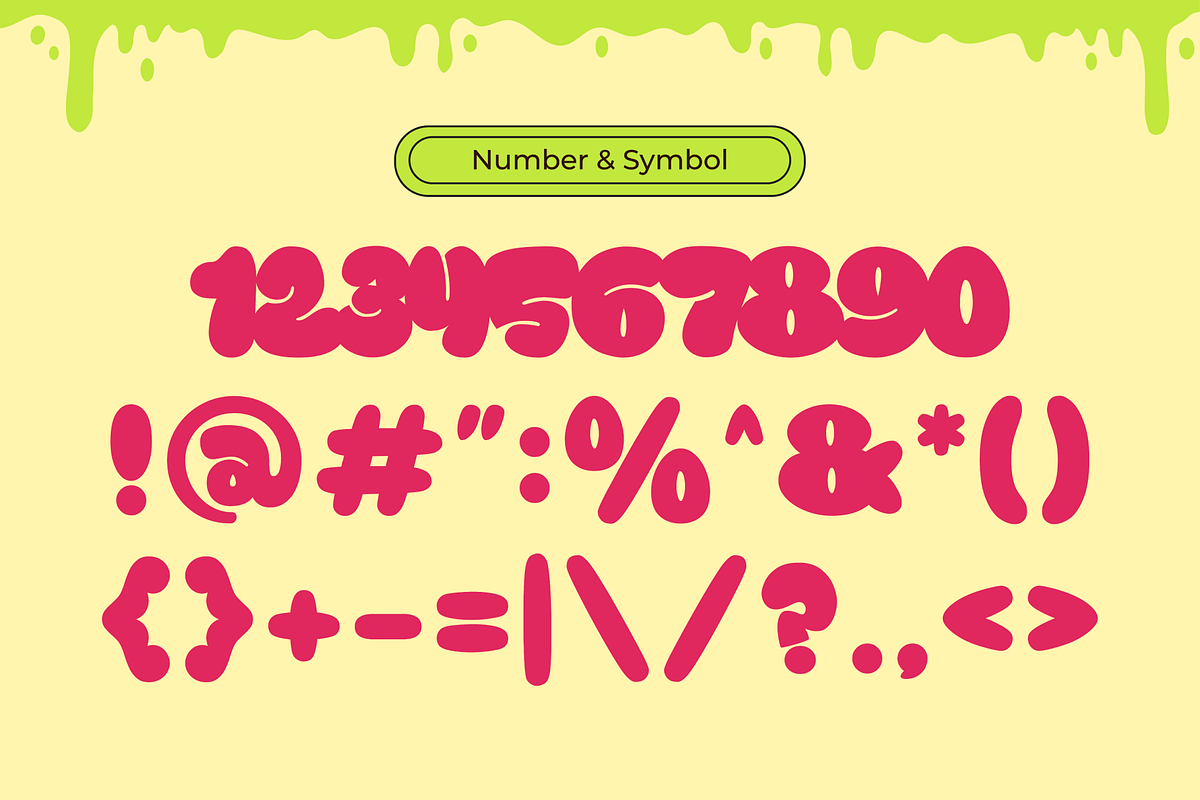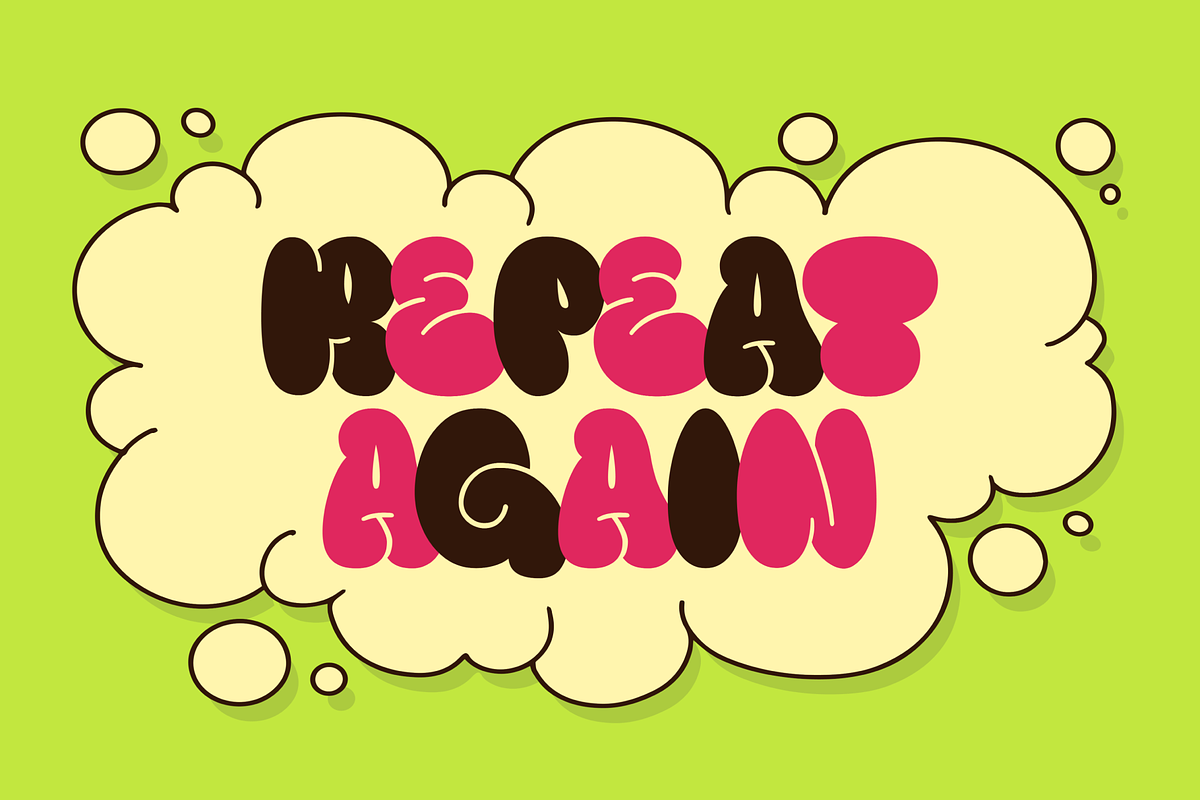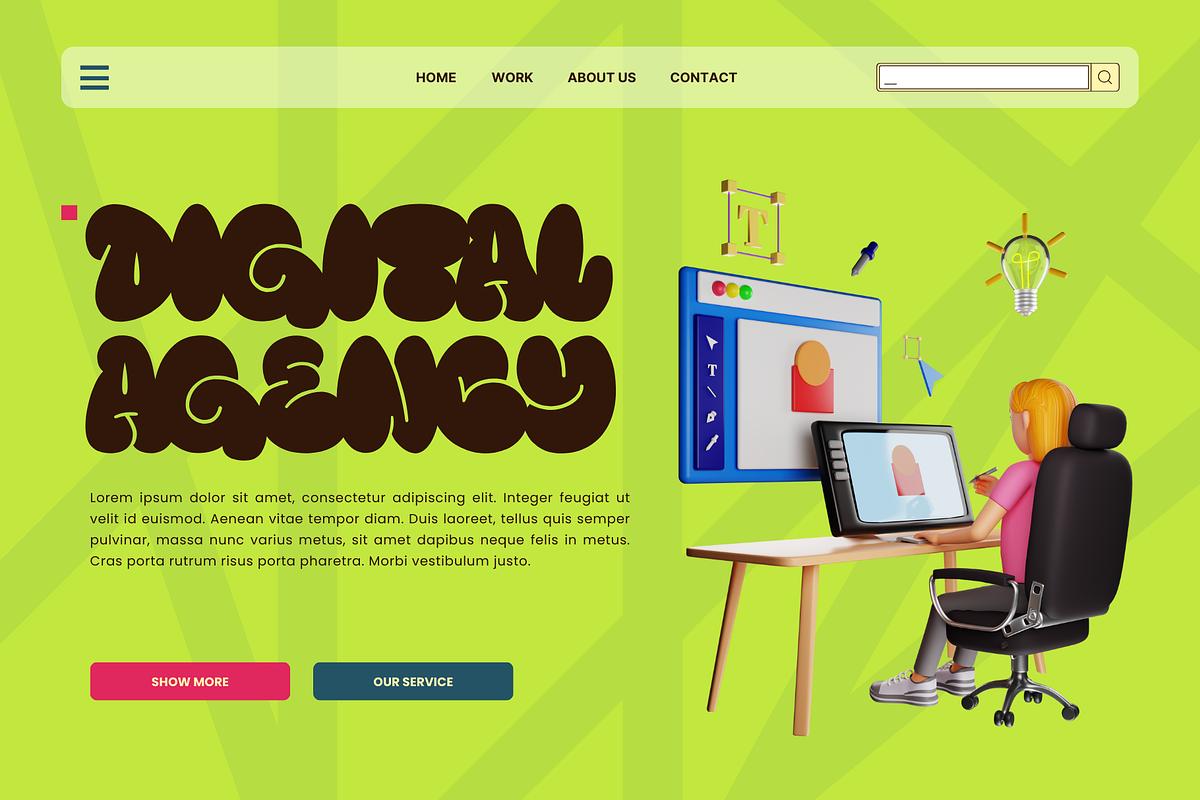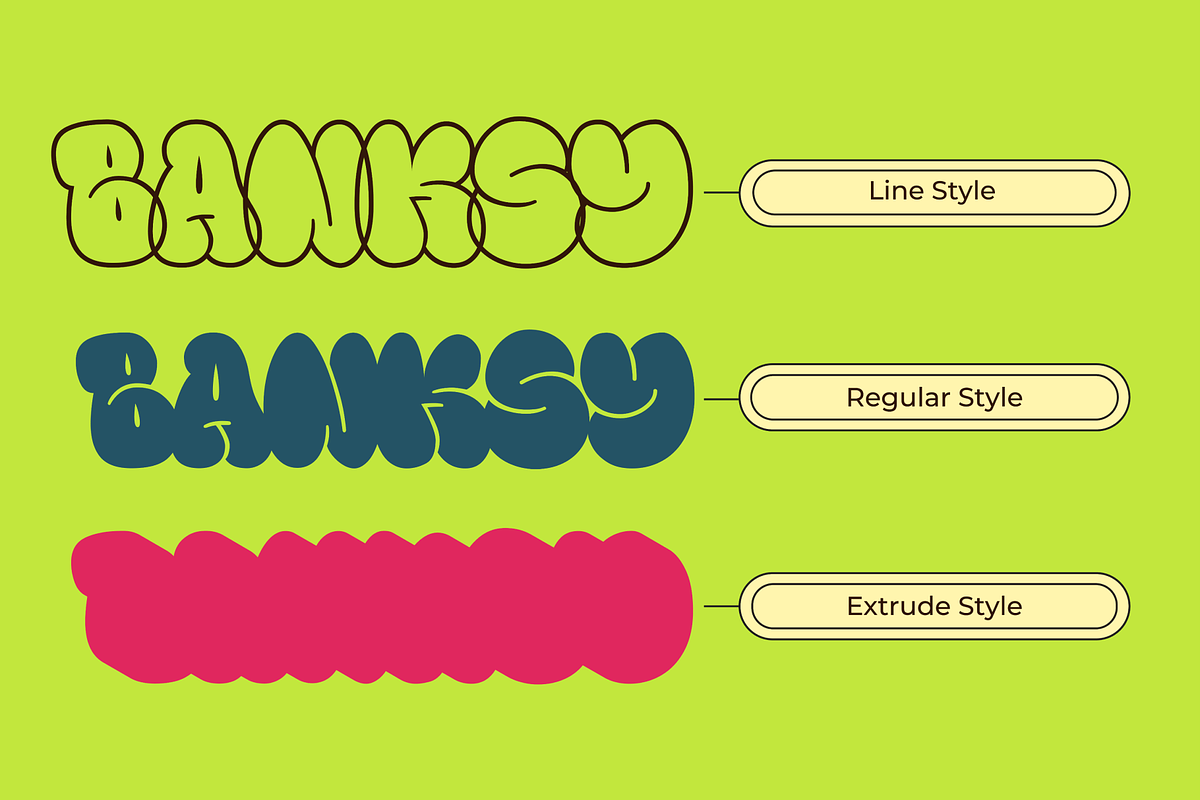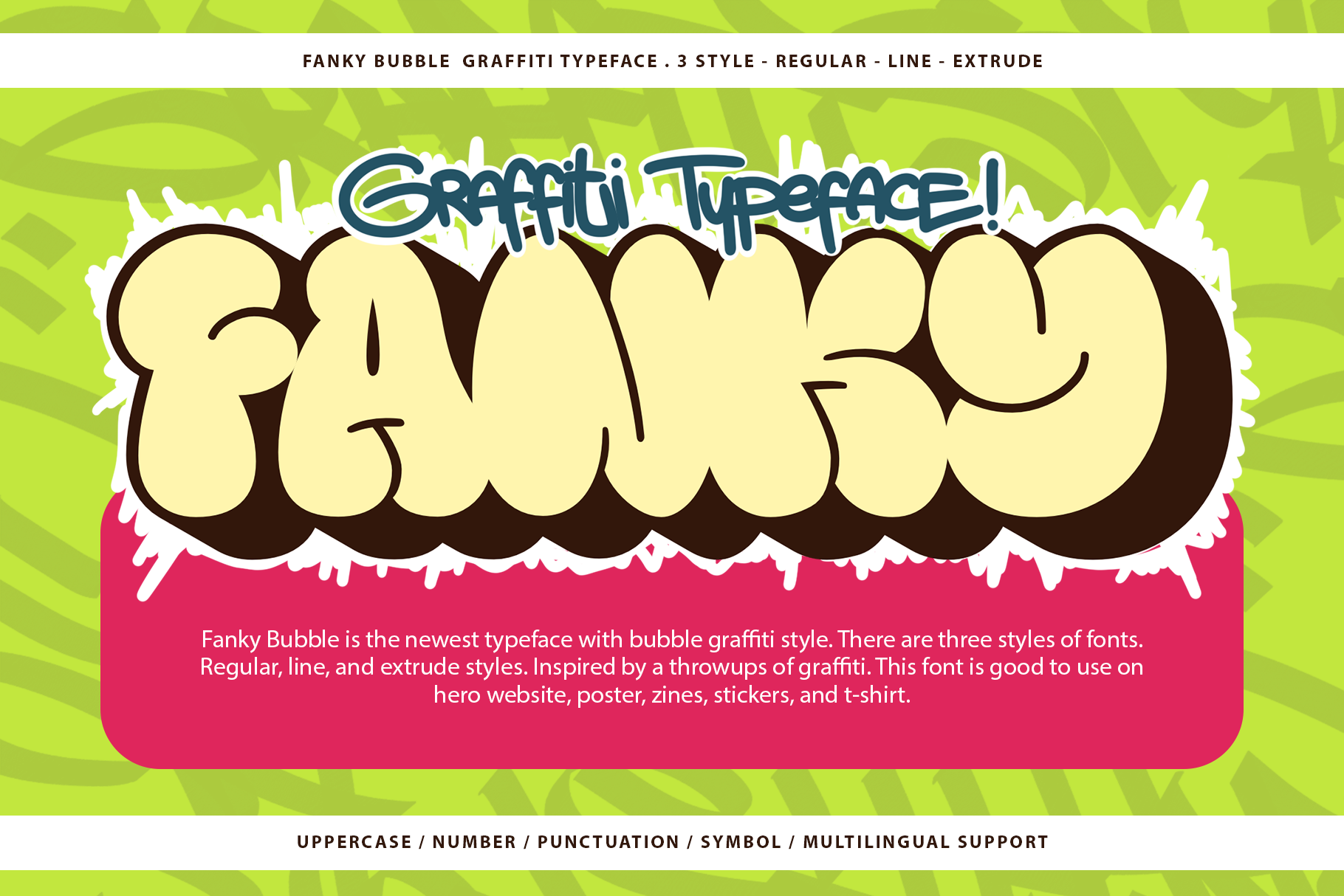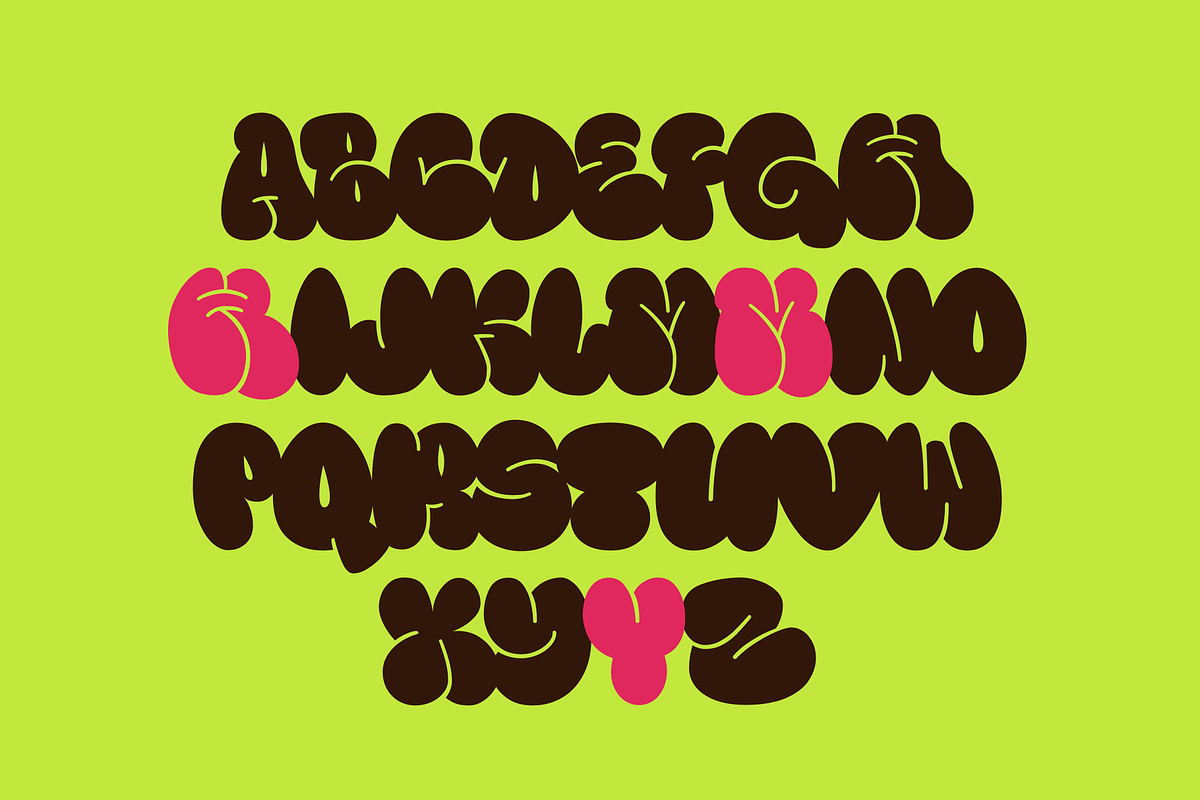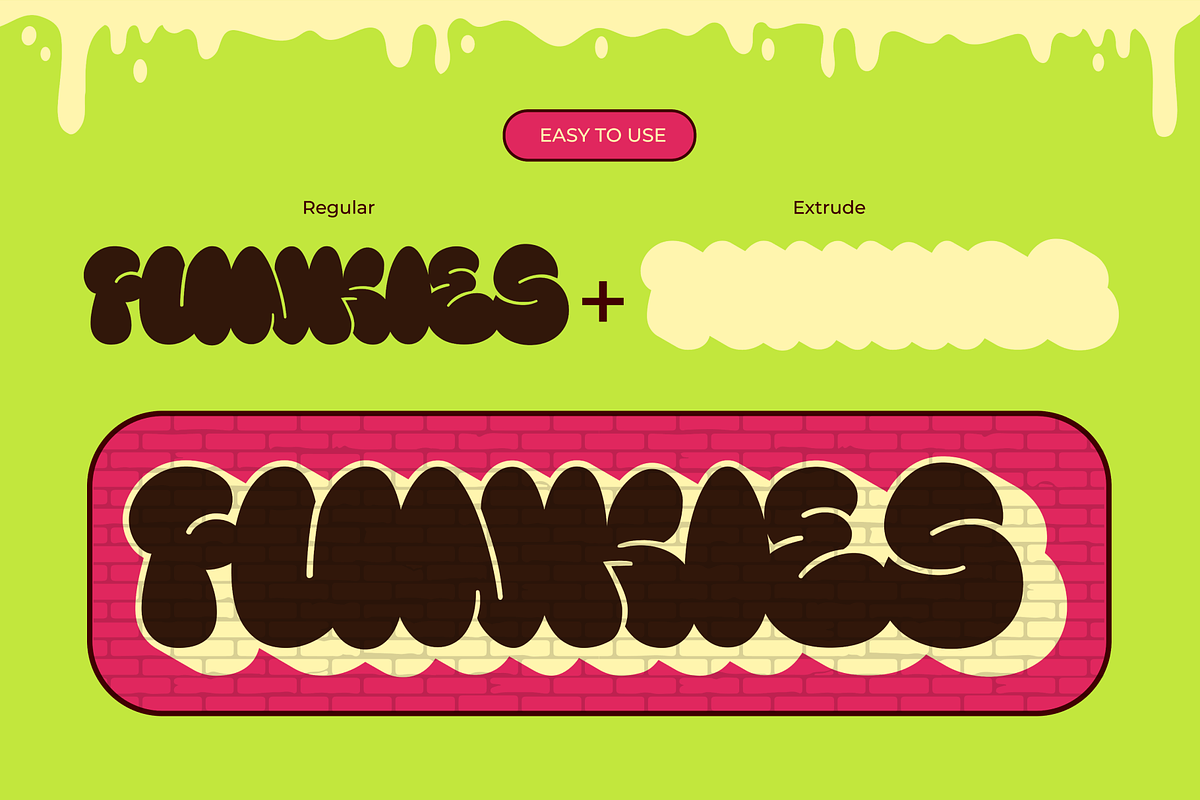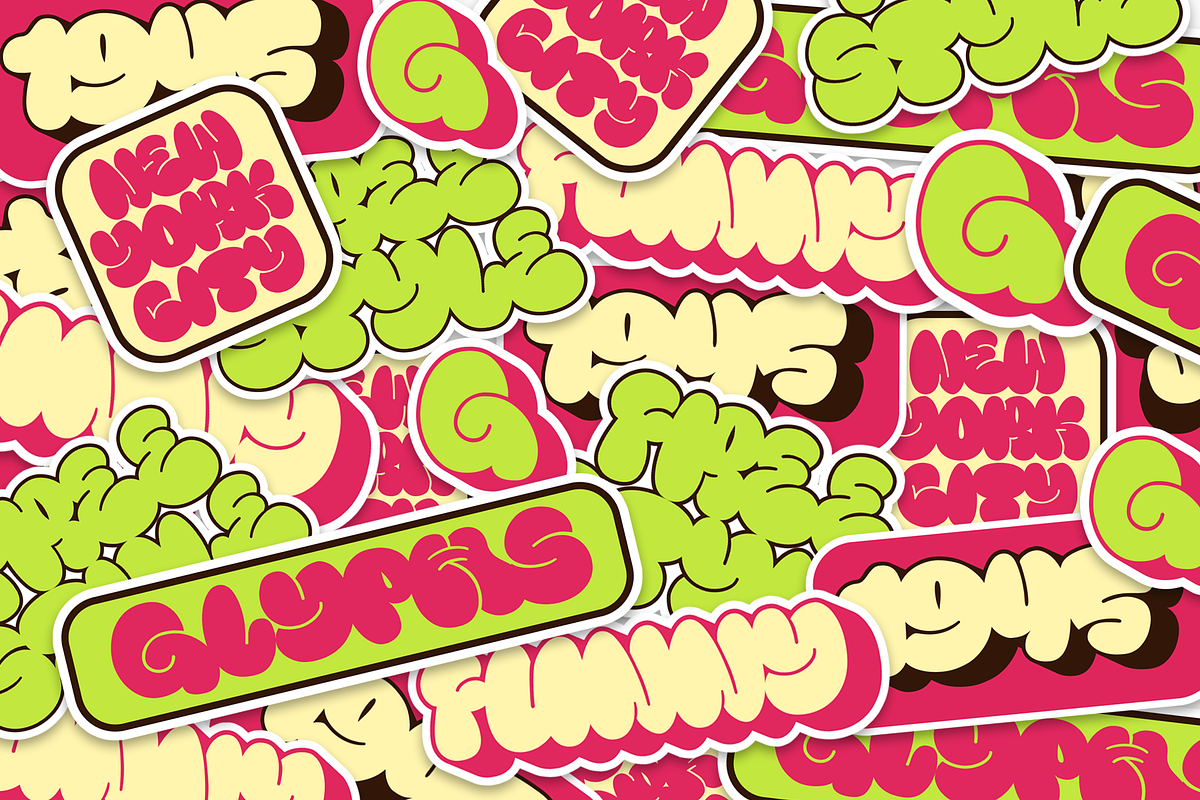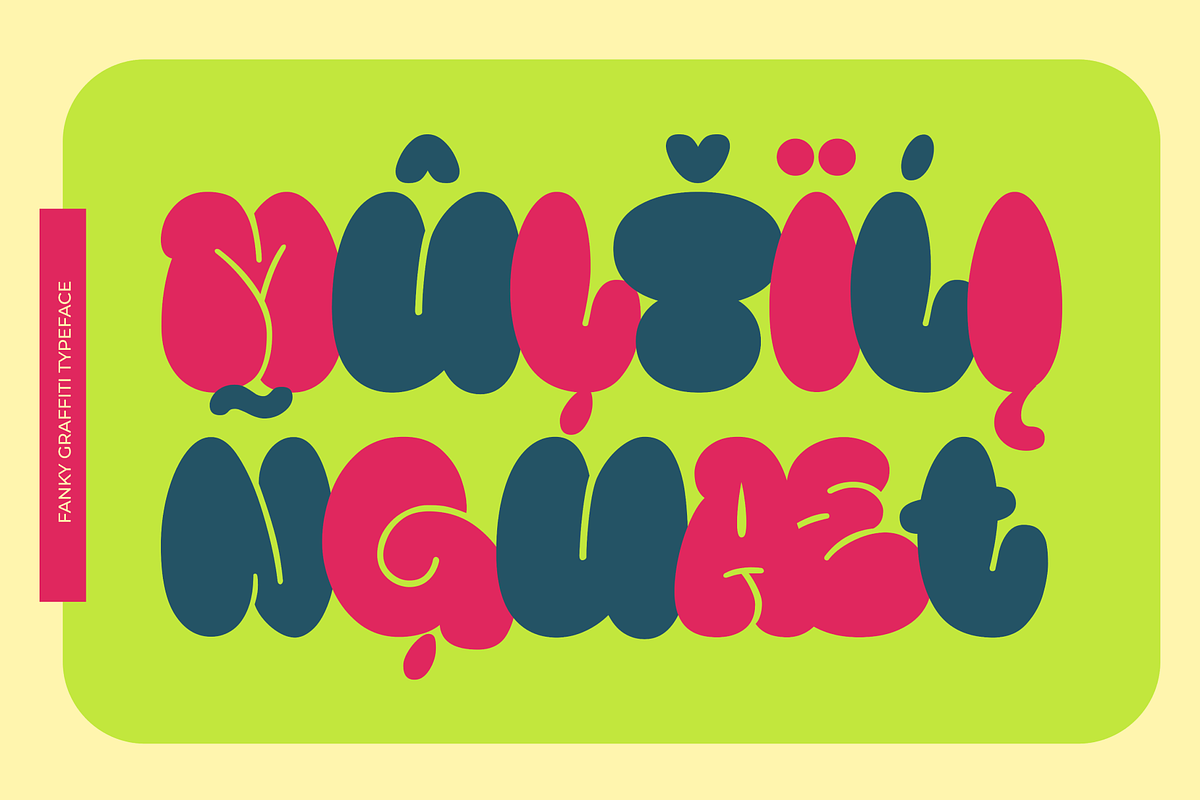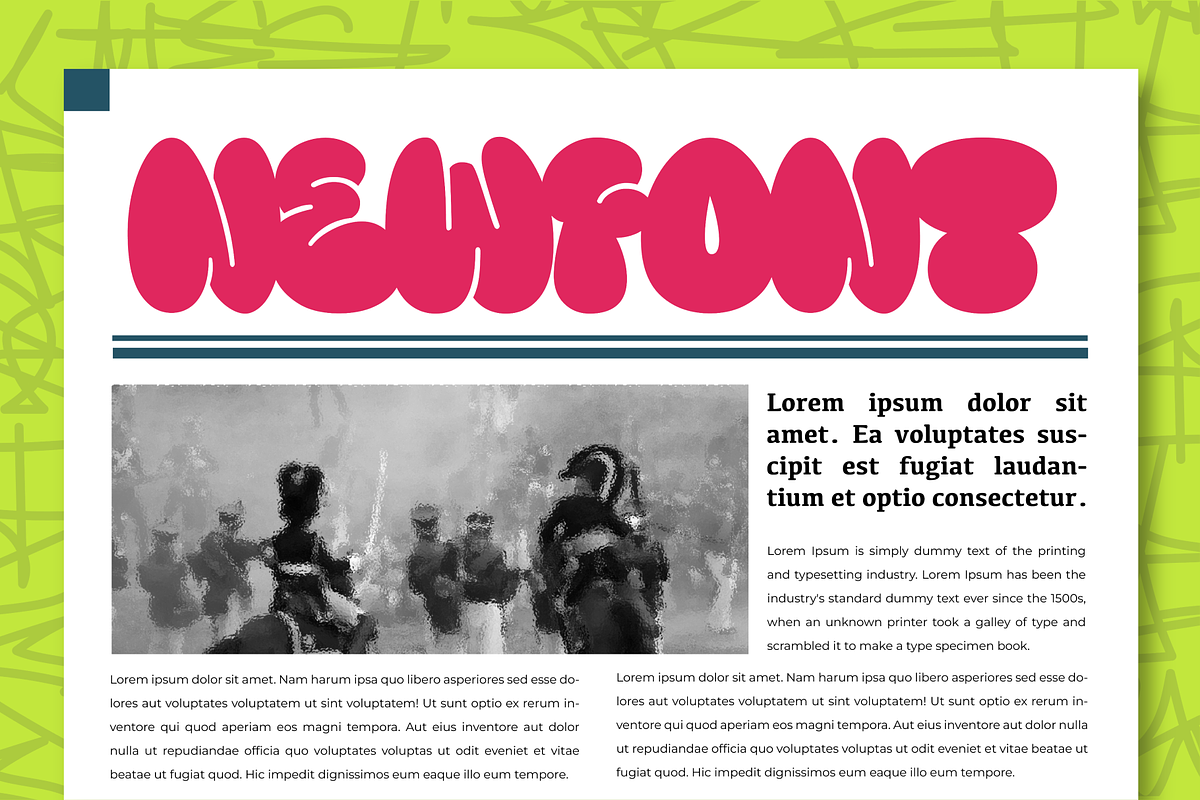
Fanky Bubble Graffiti Typeface
Fanky Bubble is the newest typeface with a bubble graffiti style. There are three styles of font. Regular, line, and extrude styles Inspired by a throwup of graffiti. The entire typography has been designed to work on large sizes. This font is good to use on posters, zines, hero websites, stickers, and t-shirts.